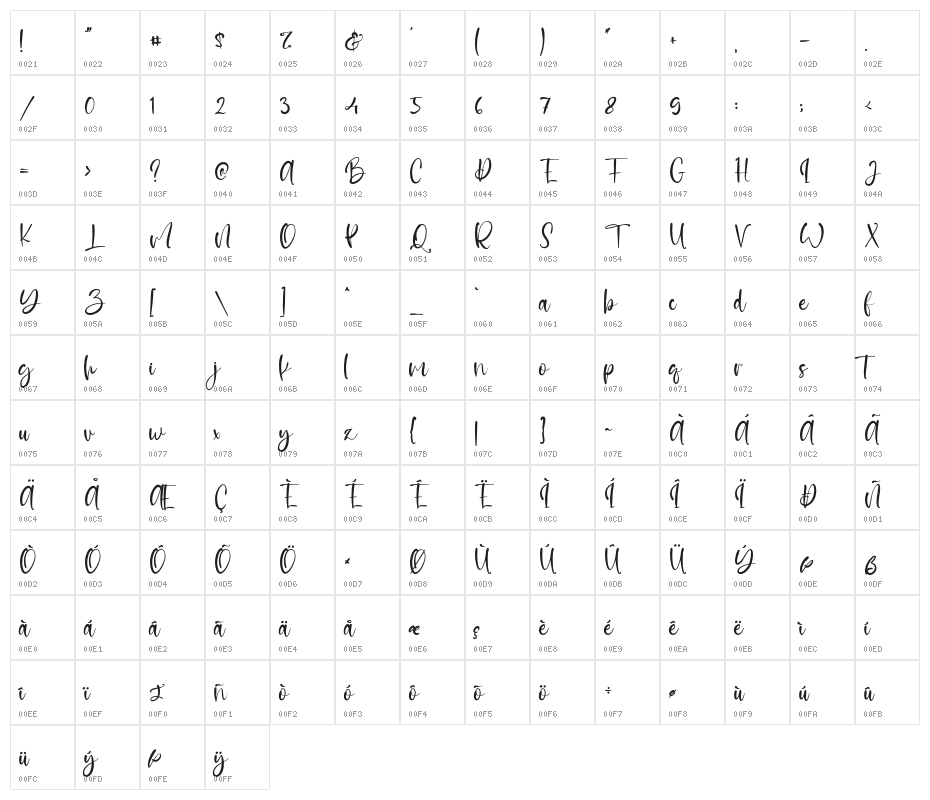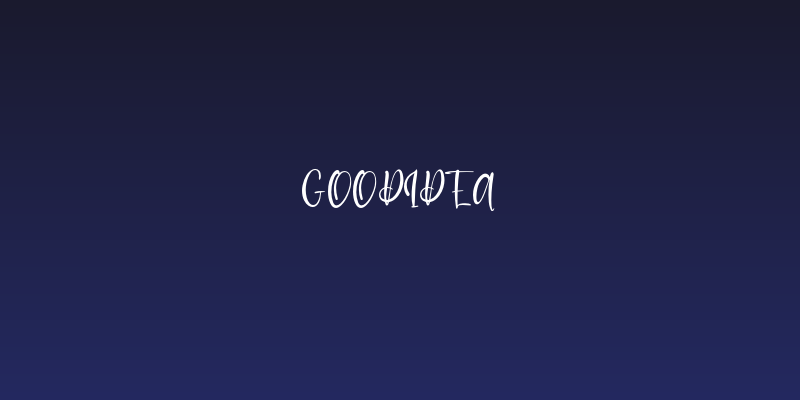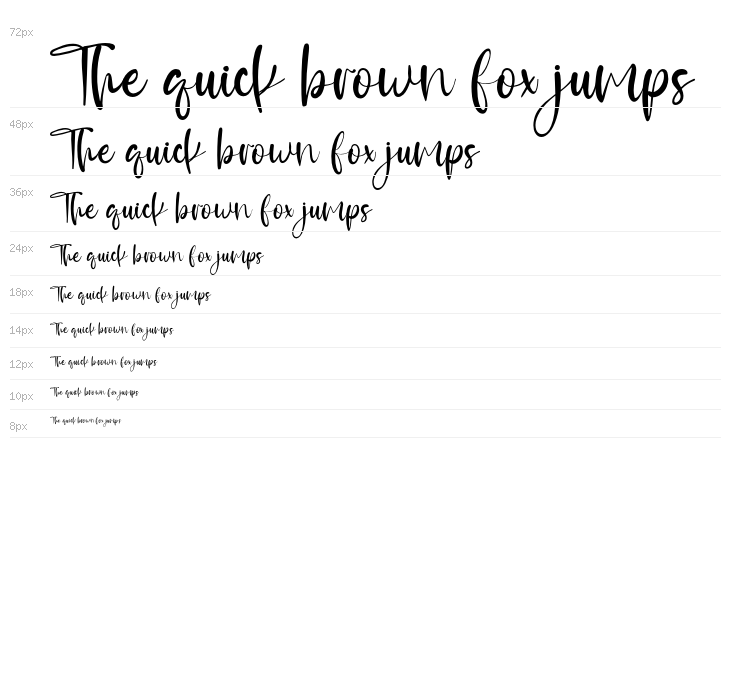
GoodIdea Font
GoodIdea Description
This font features a lively and expressive handwritten style, characterized by its fluid and dynamic strokes. The uppercase letters exhibit a playful yet elegant flair, with varying stroke widths that add a sense of movement and personality. The lowercase letters maintain a consistent style, complementing the uppercase with their own unique charm. Numbers and special characters are crafted with the same attention to detail, ensuring a cohesive look across all elements. The overall appearance is both artistic and approachable, making it suitable for a variety of creative projects.
| Proposed Projects | Ideal for wedding invitations, greeting cards, branding, and social media graphics. |